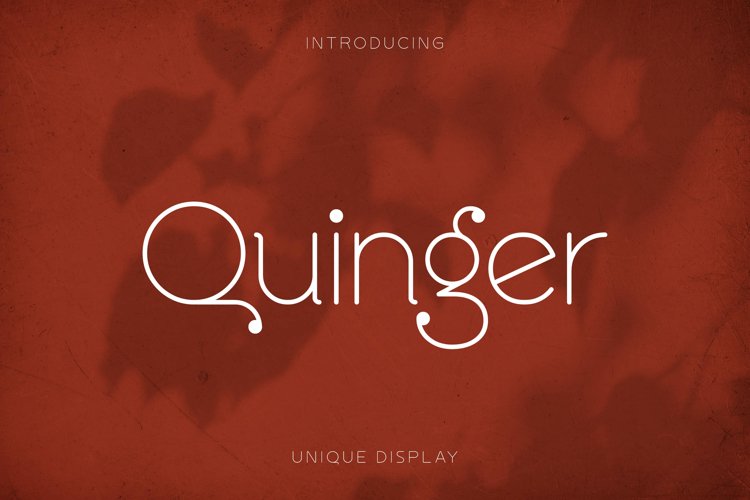
Introducing Quinger - Unique Sans Display inspired by the famous minimalist logo perfect for the purposes of designing templates, brochures, videos, advertising branding, logos and more.
+ Standard glyphs
+ Alternates glyphs
+ International Accent
Fonts include multilingual support